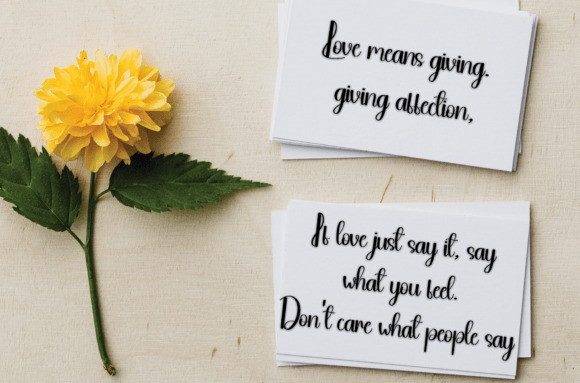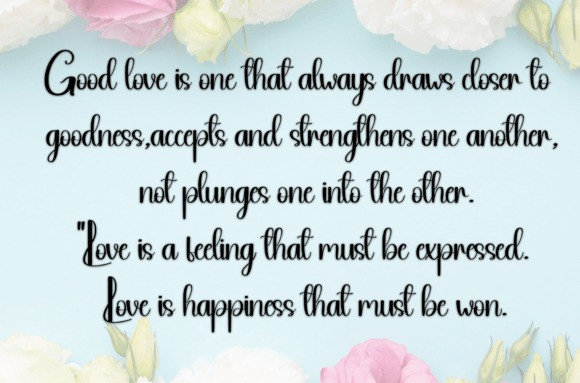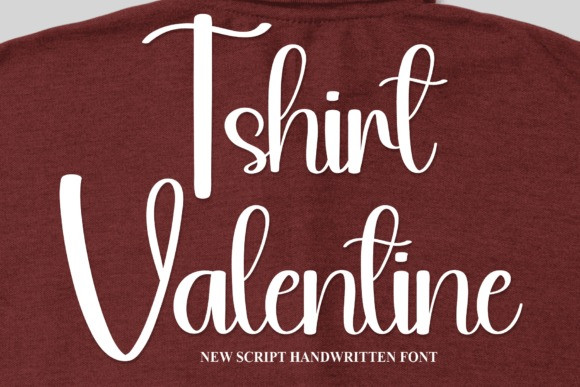
Tshirt Valentine Font
Tshirt Valentine Font is a sweet and friendly handwritten font. Creative and cute, this font is ideal for writing wedding invitations, cards, or any other design that might need a fun touch!